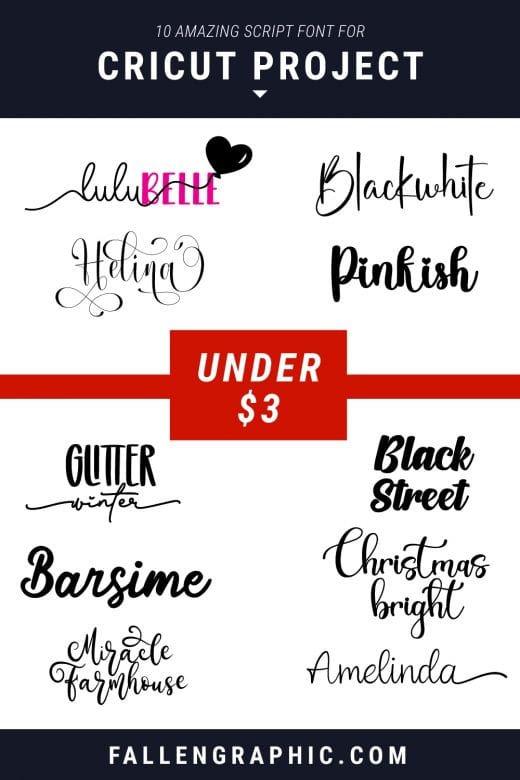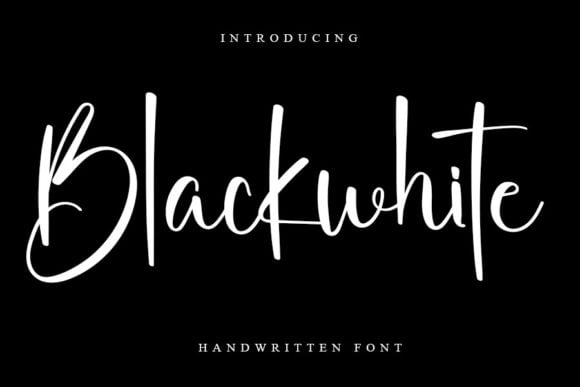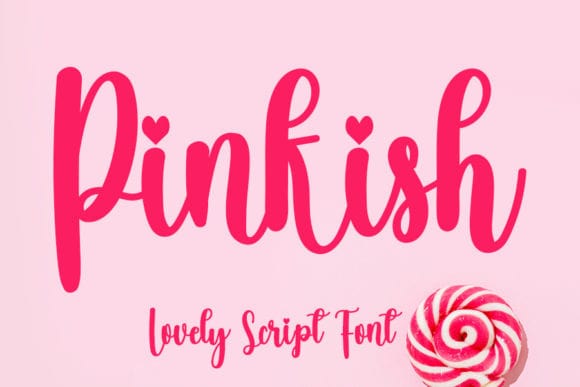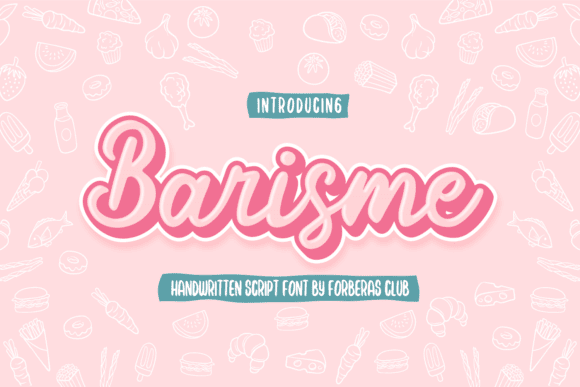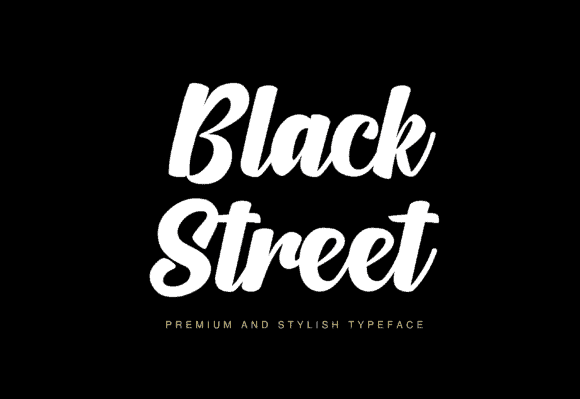
1. Lulu Belle Font
Lulu Belle is an elegant and dainty duo font (handwritten and sans serif), that features sweet and delicate swashes. This original look will appeal to a wide range of crafty ideas, from letterheads and titles, to stationery. Lulu Belle is PUA encoded which means you can access all of the glyphs and swashes with ease!
2. Helina Duo Font
Helina Duo consists of two fonts designed to complement each other perfectly. Together or apart, these fonts are ideal for adding a chic and cheery touch to your crafts. This font is PUA encoded which means you can access all glyphs and swashes with ease!
3. Blackwhite Font
Blackwhite is a delicate, elegant and flowing handwritten font. It has beautiful and well balanced characters and as a result, it matches a wide pool of designs. Add it to your most creative ideas and notice how it makes them come alive!
4. Pinkish Font
Pinkish is a magical script font carefully created with a touch of elegance. Whether you’re looking for fonts for Instagram or calligraphy scripts for DIY projects, this font will turn any creative idea into a true piece of art!
5. Glitter Winter Font
Glitter Winter is a splendid duo font (display and handwritten). Every character has a delicate and authentic feel, perfect for adding a natural appearance to your most creative projects and designs! This font is PUA encoded which means you can access all of the glyphs and swashes with ease!
6. Barsime Font
Barsime is a sweet and delicate handwritten font. Dainty and joyful, this font will be ideal for writing wedding invitations, cards or any other design that may need a romantic, personalized touch!
7. Amelinda Font
Amelinda an equally sophisticated and bold handwritten font that’s great for delivering any message with confidence, authenticity and charm. Amelinda is PUA encoded which means you can access all of the glyphs and swashes with ease!
8. Black Street Font
Black Street is a sweet, whimsical, flowing and thin script font. Featuring characters that dance along the baseline, this font will add a luxury spark to any design project that you wish to create!
9. Christsmas Bright Font
Christmas Bright is a warm, elegant and cozy handwritten font. it will look gorgeous on each of your festive designs or Christmas letters. This font is PUA encoded which means you can access all of the glyphs and swashes with ease!
10. Miracle Farmhouse Font
Miracle Farmhouse feels equally charming and elegant. It looks stunning on wedding invitations, thank you cards, quotes, greeting cards, logos, business cards and every other design which needs a handwritten touch.
1. The Miracle Script Font
The Miracle is a bold and smooth script font. This font reads as strong, confident, and dynamic and can add tons of nostalgic character to your designs.
2. Sweet Peanuts Font
Sweet Peanuts is a well-balanced and delicate script font that exudes elegance and class. This font was particularly crafted for those who need a beautiful and refreshing look to their designs.
Author : Maulana Creative
3. Candy Lime Font
Candy Lime is a sweet and cursive handwritten font. This gentle font will look gorgeous on a variety of design ideas. Candy Lime is PUA encoded which means you can access all of the glyphs and swashes with ease!
Author : Rizzky (7NTypes)
Font Banner - Free Fonts
4. Sweetmilk Font
Sweetmilk is a delicate, elegant and flowing handwritten font. It has beautiful and well balanced characters and as a result, it matches a wide pool of designs. This font is PUA encoded which means you can access all of the glyphs and swashes with ease!
5. Things Love Font
Things Love is an enchanting handwritten font. This versatile script font has a wide spectrum of applications ranging from greeting cards to headlines and is guaranteed to add a romantic feel to your next project.